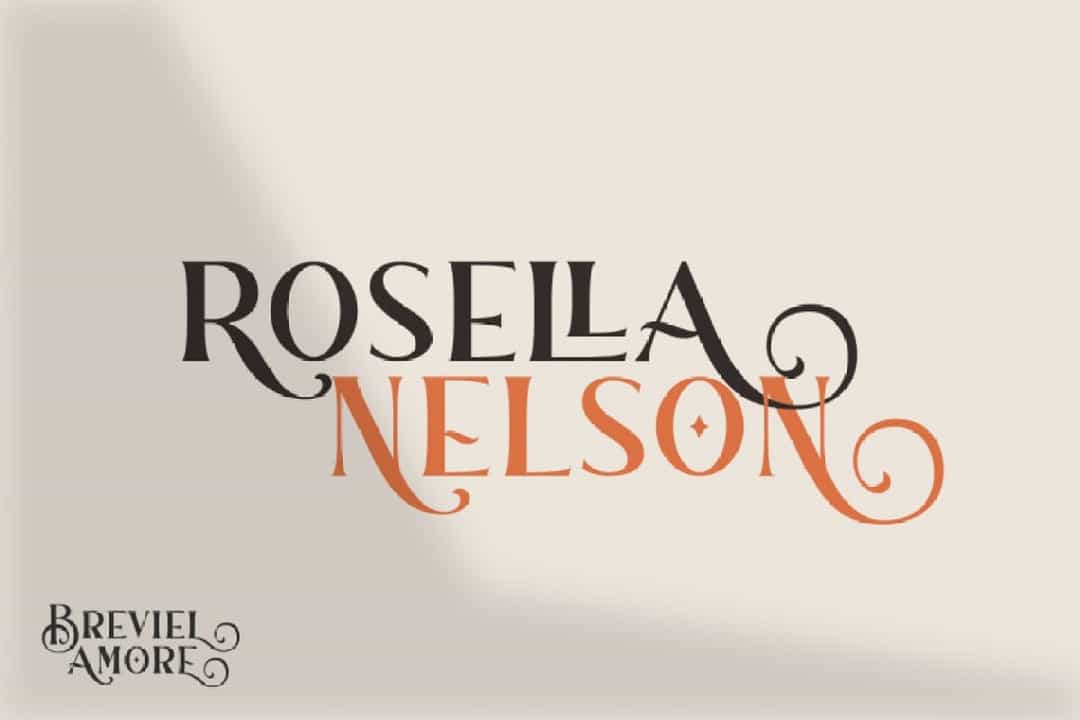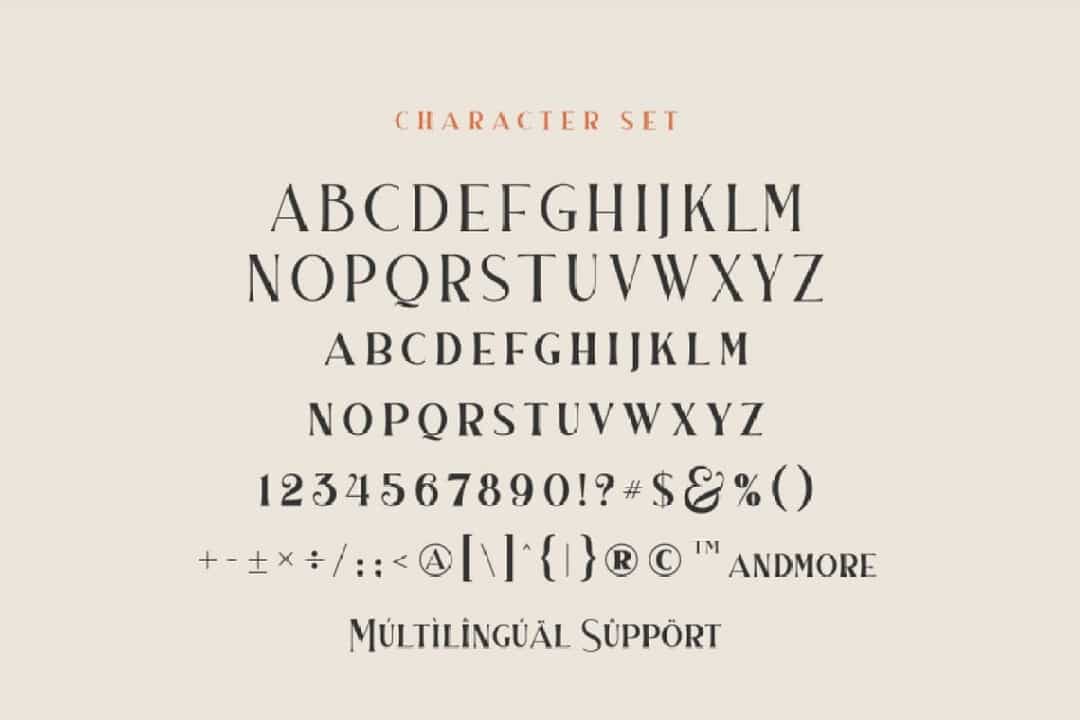
Breviel Amore Serif font is an exquisite and sophisticated style with slim serifs with tapered edges, balanced letterforms, and subtle elegance that convey the feel of elegance and sophistication. Perfect for branding with high-end appeal as well as editorial layouts or other sophisticated design projects.